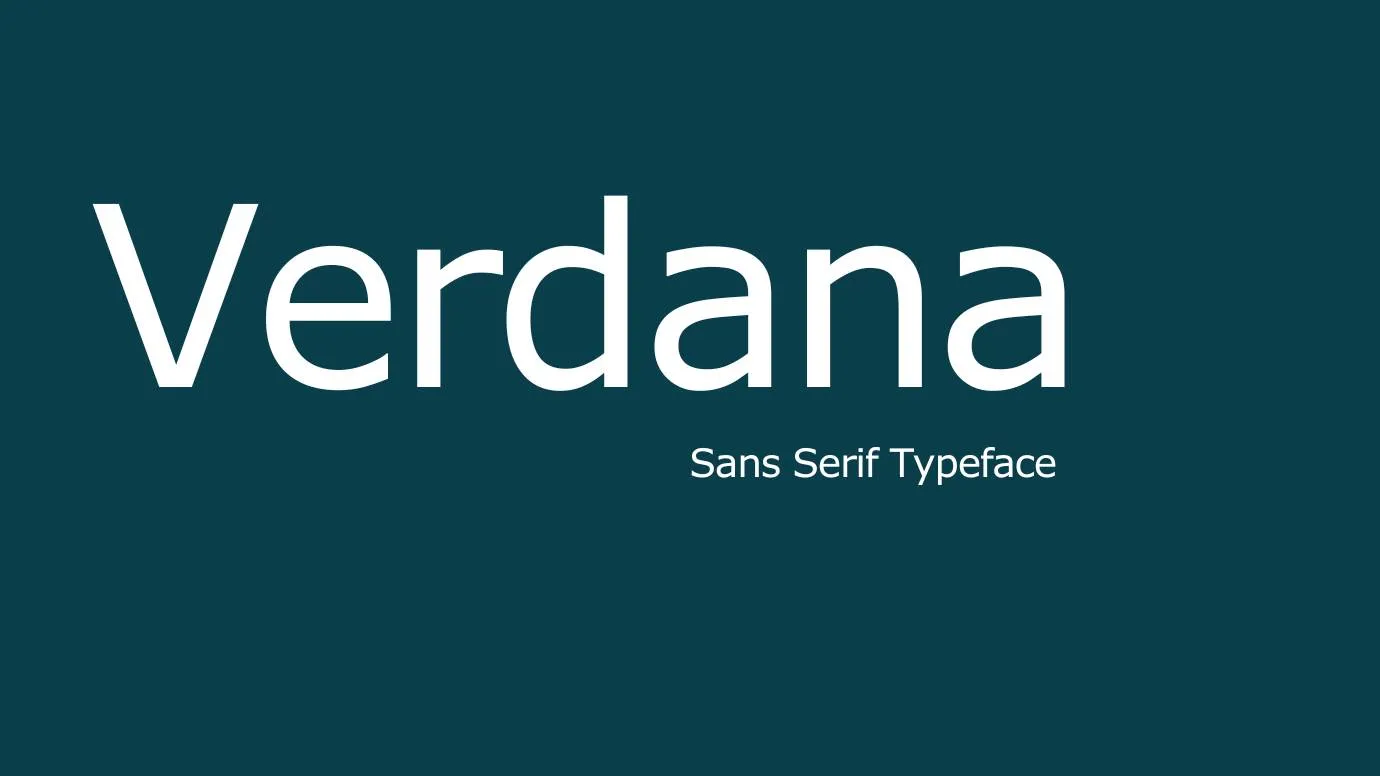
Verdana Font Family is a sans-serif typeface renowned for its legibility. This font, created by British designer Matthew Carter, gained significant popularity due to its readability.
This typeface shares similarity with many famous sans-serif typefaces such as Frutiger Font. The Hindi weight of this font is really famous and this typeface is also used for Google docs.
Verdana Font Family
NameVerdana Font
DesignerMatthew Carter
TypeModern Humanist